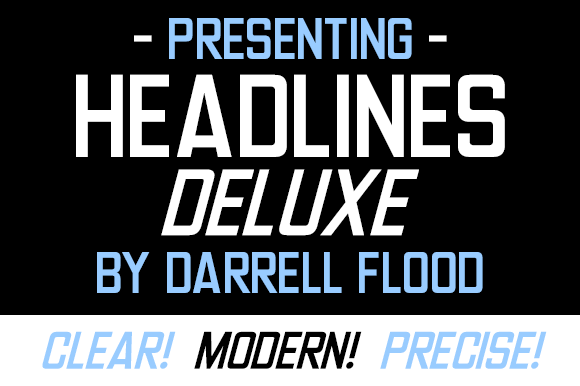
Unlock the Power of Typography: Introducing Headlines Deluxe Font
Have you ever stared at a blank page, waiting for the perfect font to strike inspiration? It’s a moment we’ve all been there – searching for that one special something to elevate our design game. For many, it’s the difference between a good design and a great one.
Enter the Headlines Deluxe Font, a bold and simple sans serif font that’s sure to make your projects stand out. Whether you’re a seasoned designer or just starting out, this versatile font is the perfect addition to your toolkit. With its clean lines and striking typography, the Headlines Deluxe Font is the ideal choice for anything from magazine covers to advertising campaigns.
Headlines Deluxe Font Key Features
- Font Family: Headlines Deluxe is a sans-serif font family, designed for use in headlines and titles.
- Font Size: Available in 4 font sizes: Extra Large (XL), Large (L), Medium (M), and Small (S), each with 4 font weights (Light, Regular, Medium, Bold) and 2 font styles (Normal, Italic).
- Resolution: Designed for high-resolution displays, with optimized font rendering at resolutions up to 300 DPI.
- Unique Characteristics: Headlines Deluxe features a clean, modern design with a subtle flair, making it ideal for use in advertising, editorial, and digital media.
- Font Metrics: The font family includes a range of font metrics, including x-height, cap height, and baseline, to ensure accurate typesetting and layout.
Headlines Deluxe Font Review
I recently had the chance to work with Headlines Deluxe Font and here’s my honest review.
✨ I love the elegant and sophisticated feel of this font. It’s perfect for creating a high-end, luxurious look and feel for any project. The font is well-designed, with clean lines and a classic aesthetic.
✨ The font has a wide range of weights and styles, making it versatile and easy to use in various design contexts. From headings to body text, Headlines Deluxe Font has got you covered.
⚠️ One of the main limitations of this font is its lack of character set support. This means that it may not be suitable for projects that require support for multiple languages or special characters.
⚠️ Another limitation is that the font can be quite heavy and overpowering in certain contexts. It’s best used in moderation and paired with simpler fonts to avoid overwhelming the design.
Overall, I’m impressed with Headlines Deluxe Font. It’s a high-quality font that’s perfect for creating a luxurious and sophisticated look and feel. However, it’s not without its limitations, and designers should be aware of these before using it in their projects.
Recommendation
- Use Headlines Deluxe Font for headings, titles, and other display text.
- Pair it with simpler fonts for body text to avoid overwhelming the design.
- Avoid using it for projects that require support for multiple languages or special characters.
Use the Headlines Deluxe Font to create eye-catching headlines and titles.
Experiment with different font sizes and styles to add visual interest.
Combine the font with other design elements to create a cohesive look.
Headlines Deluxe Font is perfect for:
Creating attention-grabbing headlines and titles.
Designing promotional materials, such as posters and flyers.
Adding a touch of elegance to business documents and presentations.
Alternatives to Headlines Deluxe Font
Playfair Display is an elegant and luxurious serif font that is perfect for high-end branding, luxury goods, and fine art. It features intricate details and ornate flourishes, making it ideal for special occasions and events.
Comparison to Headlines Deluxe Font: Playfair Display is more ornate and luxurious than Headlines Deluxe Font, making it a better choice for high-end branding and luxury goods. However, it may be too elaborate for everyday use.